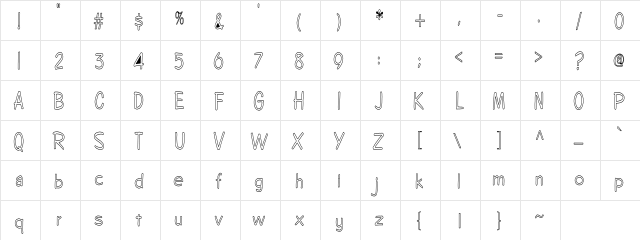
Diego1HC Regular
Diego1HC takes a measured approach to typography — its balanced proportions and neutral character make it a reliable workhorse for both digital and print work.